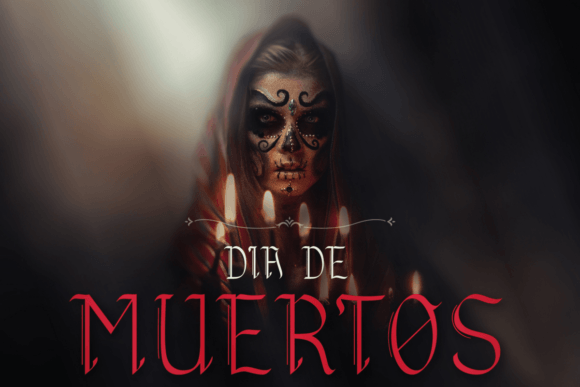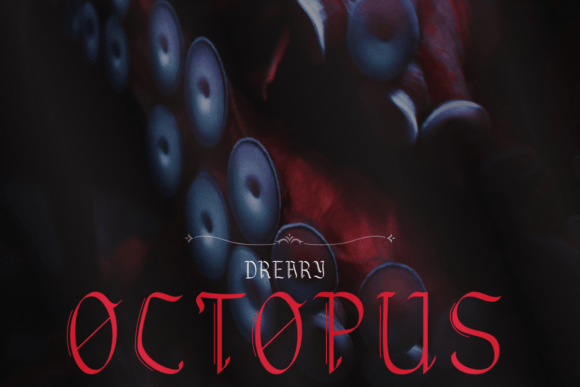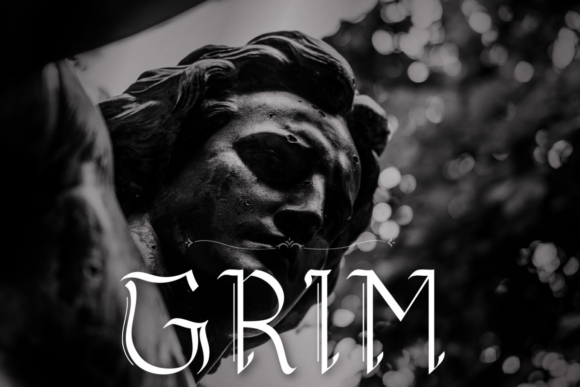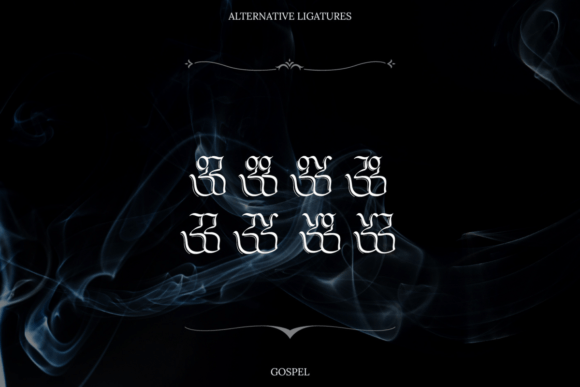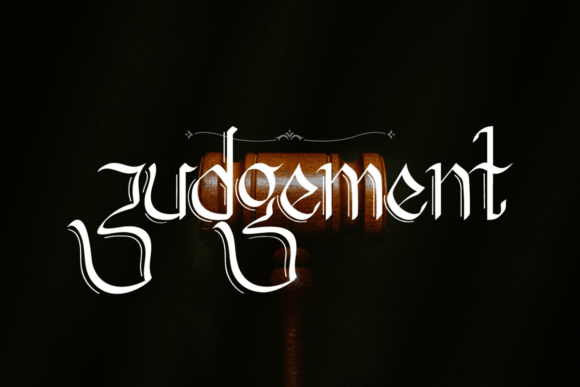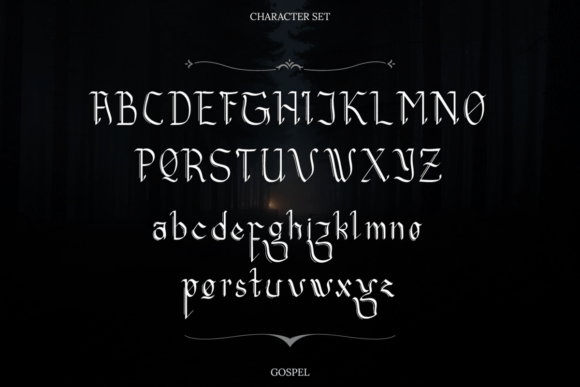
Gospel Font: Unleashing the Power of Gothic Calligraphy
In the realm of typography, few fonts evoke the same level of mystique and allure as the Gospel Font. This stunning adaptation of a Blackletter or Gothic font is characterized by its unique lines and details, which set it apart from more traditional typefaces. Inspired by the ornate calligraphy of the old west, Gospel Font is a versatile and eye-catching choice for designers and crafters looking to add a touch of vintage flair to their work.
The Origins of Gospel Font
The Gospel Font owes its name to one of Europe’s most enduring slogans: “Gold, Glory, Gospel.” This phrase, which dates back to the era of European exploration and conquest, captures the essence of adventure, discovery, and spiritual pursuit. The font’s creator drew inspiration from this phrase, infusing the typeface with a sense of history, mystery, and grandeur.
Design Characteristics of Gospel Font
Gospel Font is distinguished by its striking design elements, which include:
- Unique lines and details: Gospel Font features intricate lines and flourishes that give it a distinctive, hand-crafted feel.
- Blackletter or Gothic inspiration: The font’s Gothic roots lend it a sense of drama and formality, while its Blackletter influences add a touch of whimsy and playfulness.
- Old western calligraphy: Gospel Font’s connection to old western calligraphy imbues it with a rugged, timeless quality.
Visual Impact of Gospel Font
When used in design, Gospel Font brings a range of visual effects that can elevate a project from ordinary to extraordinary. Some of the key visual impacts of this font include:
- Strength and dimensionality: The font’s distinctive lines and details create a sense of depth and dimensionality, making it appear stronger and more robust.
- Scary, vintage, strong, and mysterious vibes: Gospel Font’s Gothic and Blackletter influences combine to create a typeface that exudes a sense of mystery, power, and history.
Best Uses for Gospel Font
Gospel Font’s versatility makes it suitable for a wide range of design applications, including:
- Logos and branding: The font’s unique character and visual impact make it an excellent choice for logos and branding projects.
- Fashion projects: Gospel Font’s strong, dimensional quality lends itself well to fashion design, particularly for labels, packaging, and marketing materials.
- Lettering and calligraphy: The font’s connection to traditional calligraphy makes it a natural fit for lettering and calligraphy projects.
- Decoration on art: Gospel Font’s surreal, dreamlike quality makes it an excellent choice for decorating art pieces, particularly those with a surrealist or abstract theme.
Tips for Working with Gospel Font
To get the most out of Gospel Font, consider the following tips:
- Experiment with different sizes and colors: Gospel Font’s visual impact can be amplified or muted depending on the size and color used.
- Pair with complementary fonts: Combining Gospel Font with other fonts can create interesting visual contrasts and hierarchies.
- Use in combination with imagery: The font’s strong, dimensional quality makes it an excellent choice for use in combination with images or illustrations.
| Font Name | Gospel Font |
| Author | inferno.type3 |
Gospel Font is a unique and captivating typeface that offers designers and crafters a powerful tool for adding depth, history, and visual interest to their work. With its roots in Gothic and Blackletter traditions, and its inspiration from old western calligraphy, Gospel Font is an excellent choice for a wide range of design applications. Whether used for logos, fashion projects, lettering, or art decoration, this font is sure to make a lasting impression.